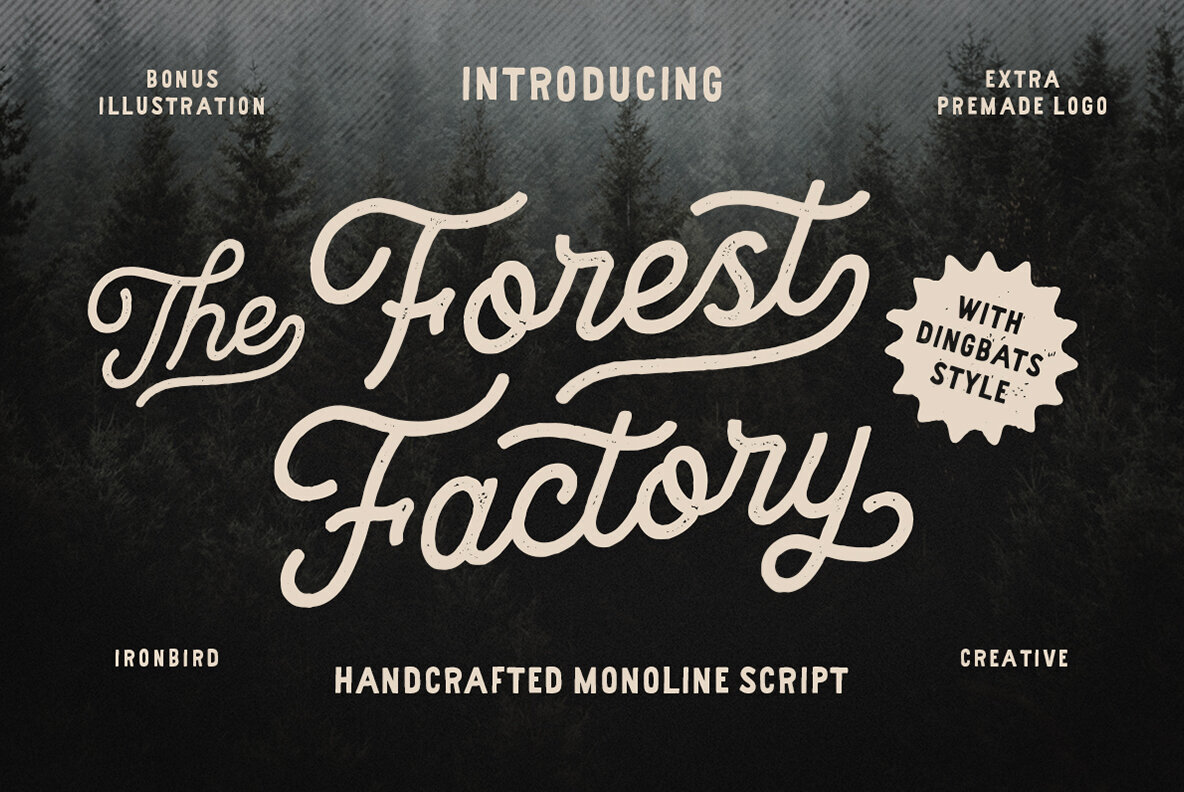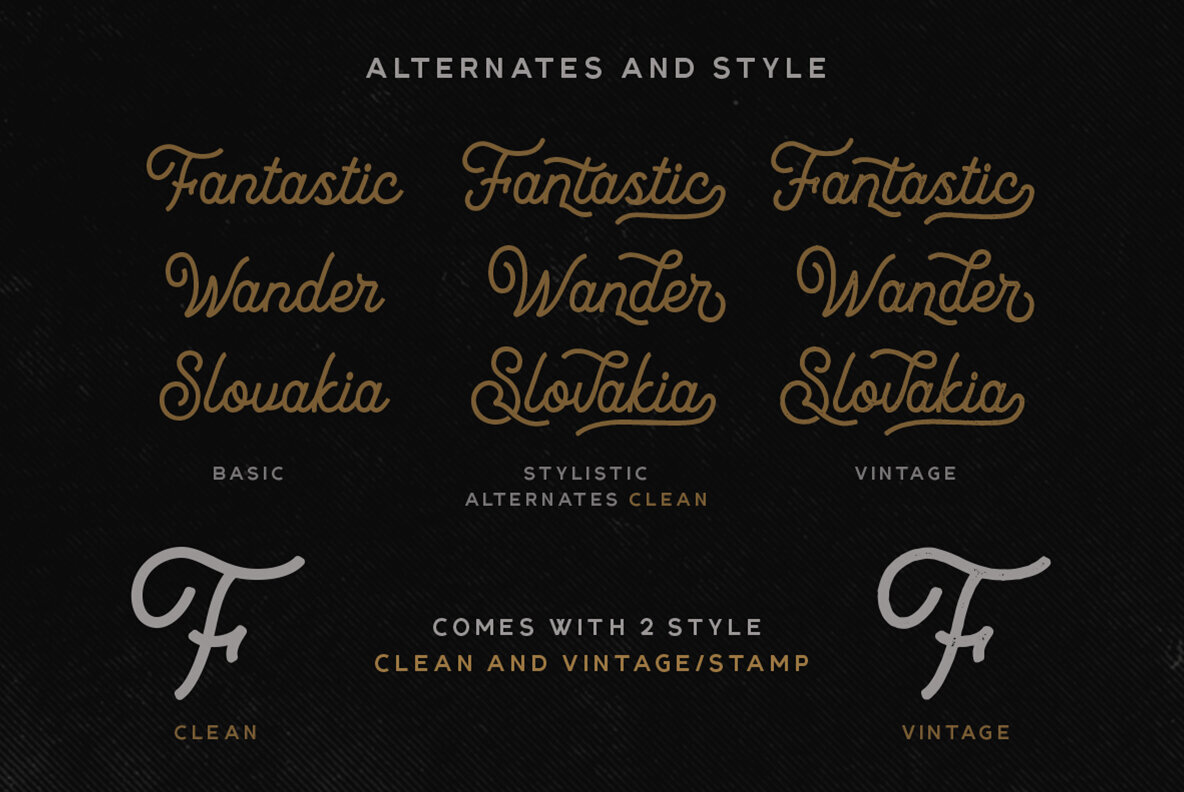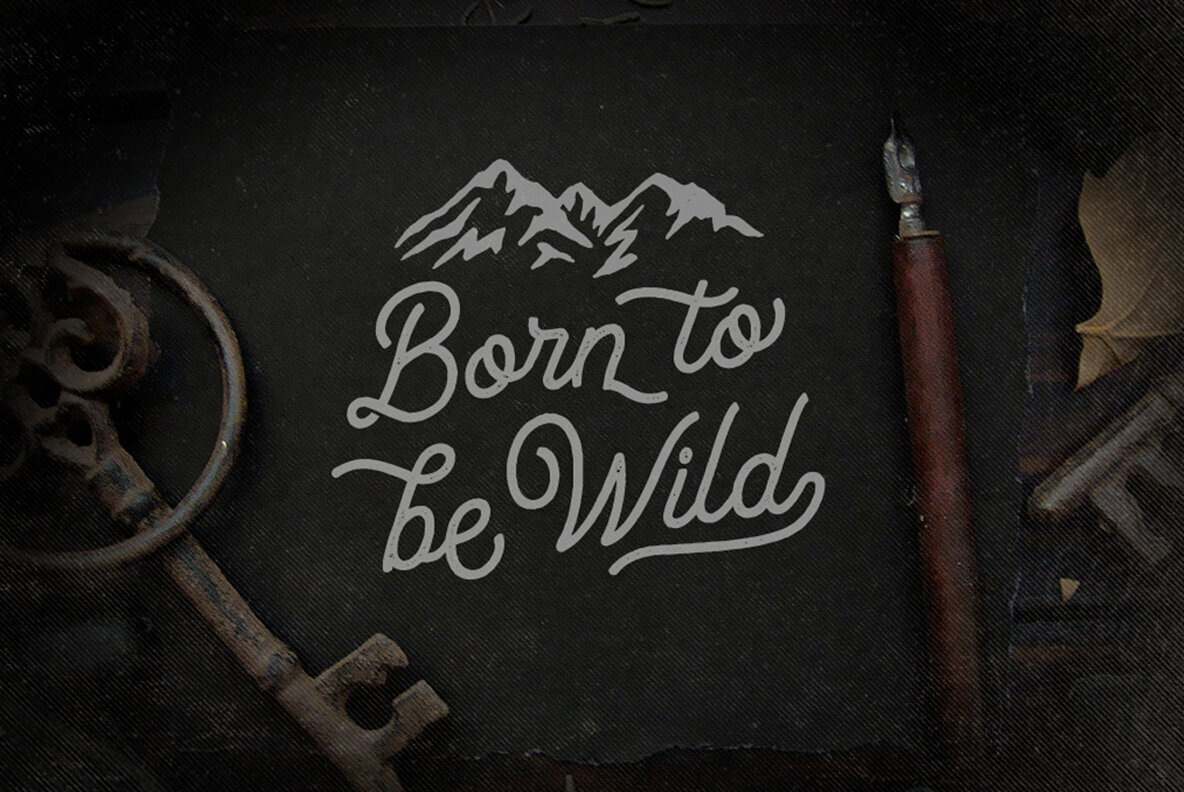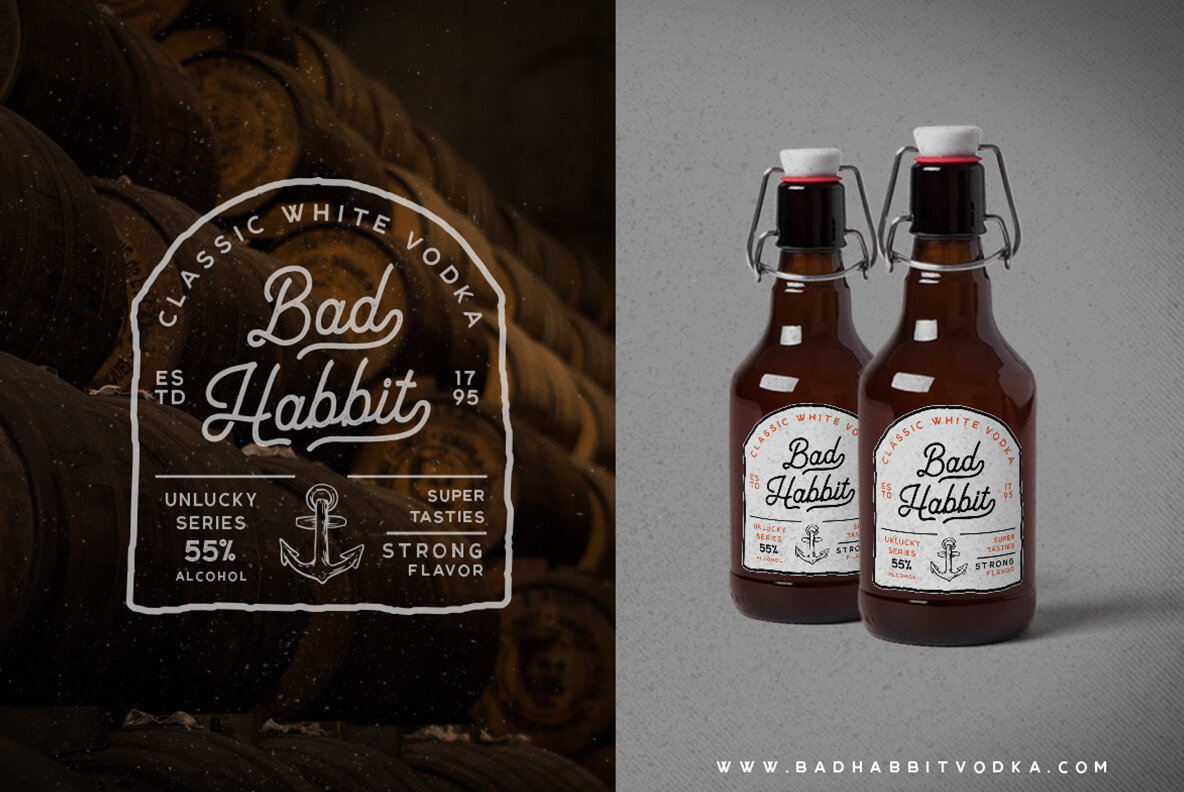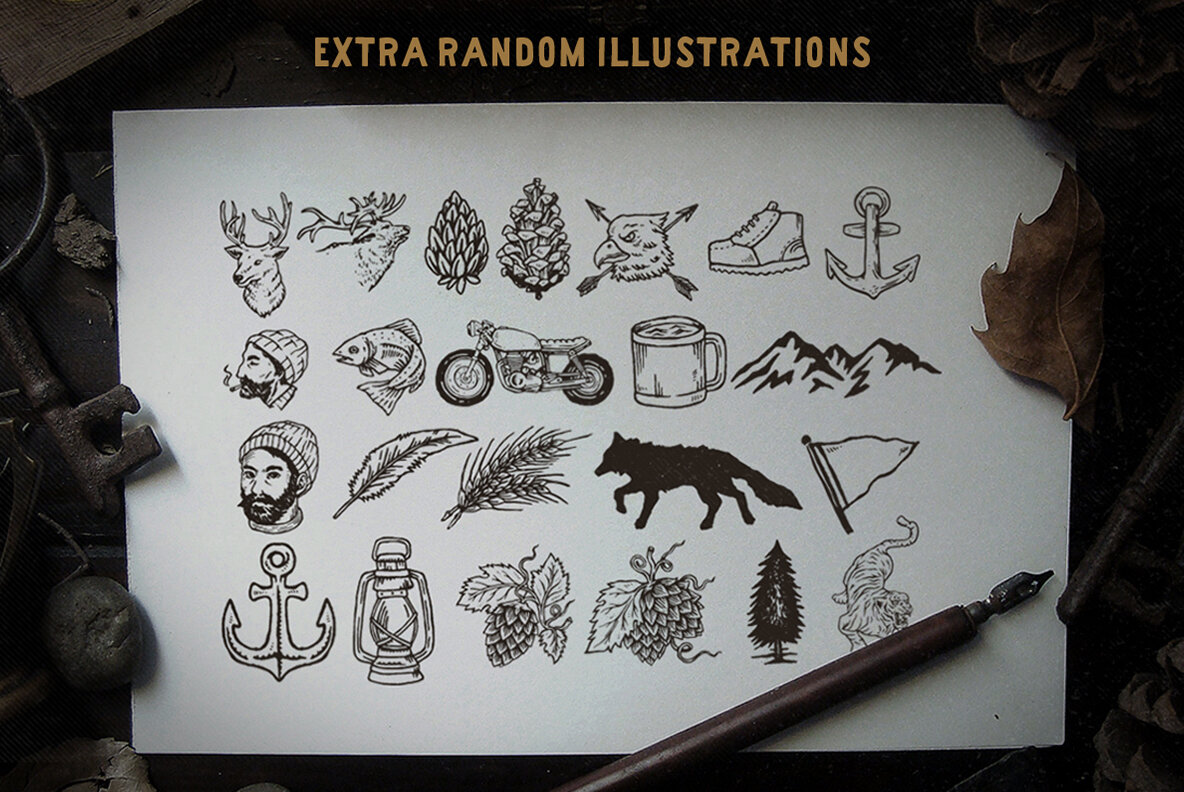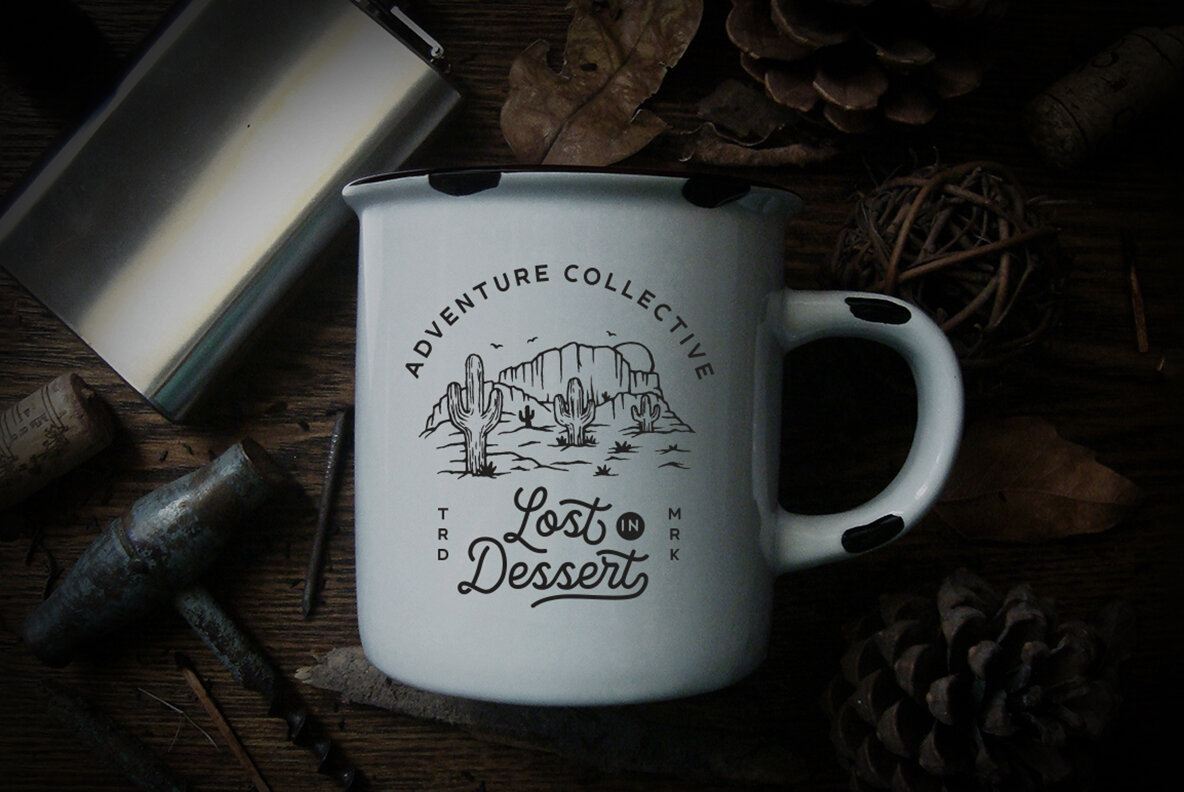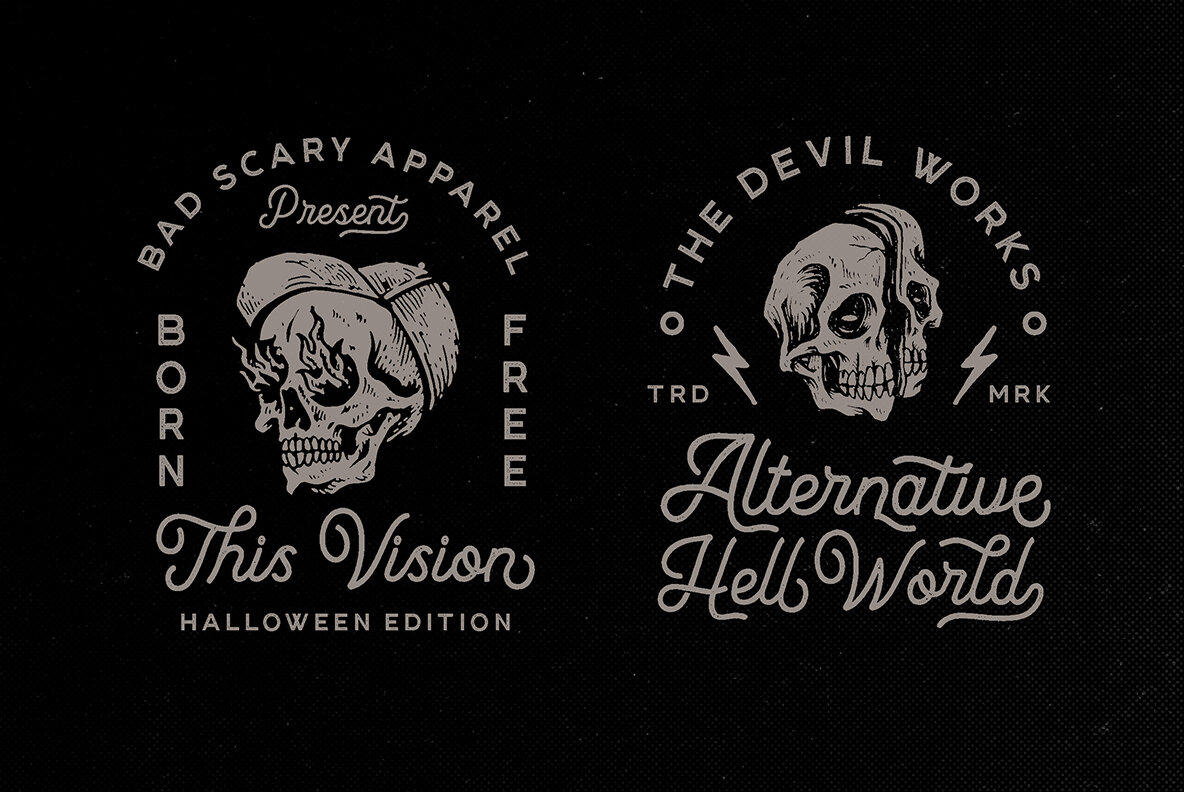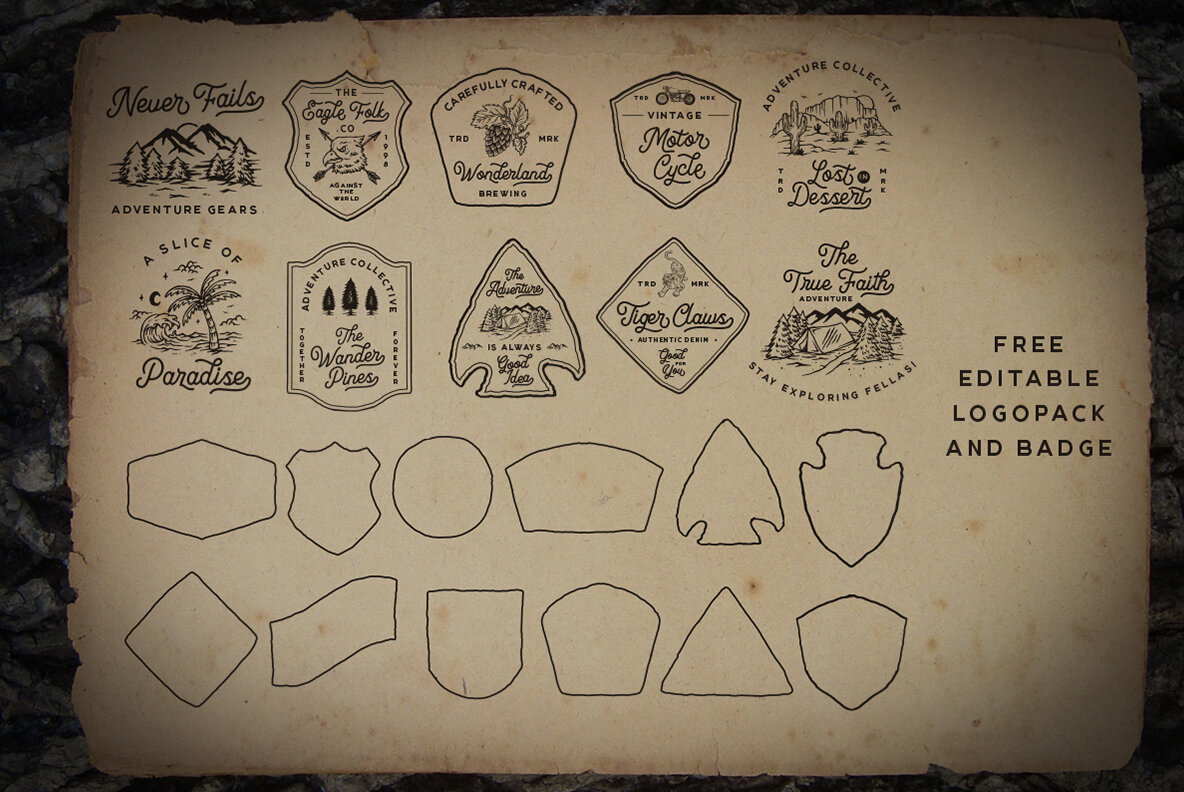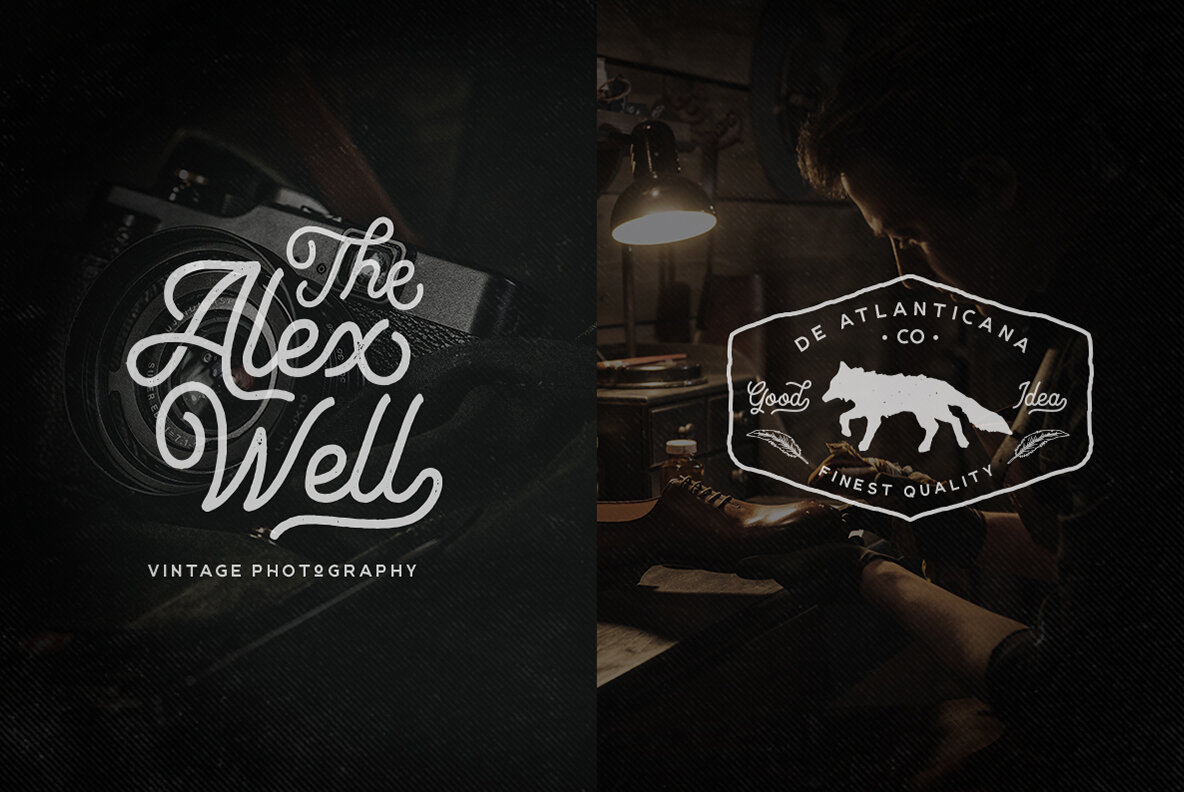
The Forest Factory Font
The Forest Factory
The Forest Factory Dingbats
The Forest Factory Stamp
The Forest Factory is a handcrafted monoline script font that brings a sense of vintage and classic charm to any project. Designed with the nuances of traditional penmanship, it offers both clean and stamped styles, presenting versatility for a range of design applications. Its thoughtful construction makes it well-suited for branding, print materials, and digital graphics where a handcrafted aesthetic is desired. Complementing the font, a curated set of illustrations, logos, and badges is included, as well as a companion sans serif, Ultralife Sans. This suite of design elements streamlines workflow, enabling cohesive visual stories across multiple media.The Forest Factory: Vintage Monoline Script With Essentials